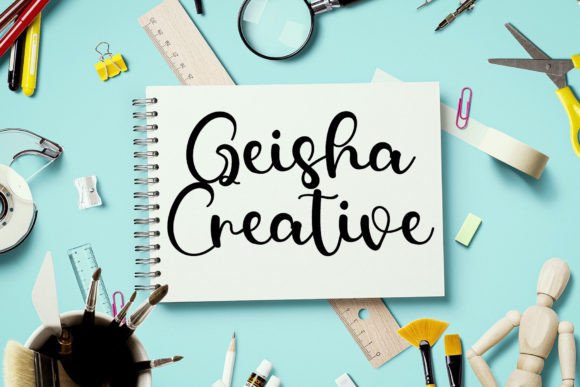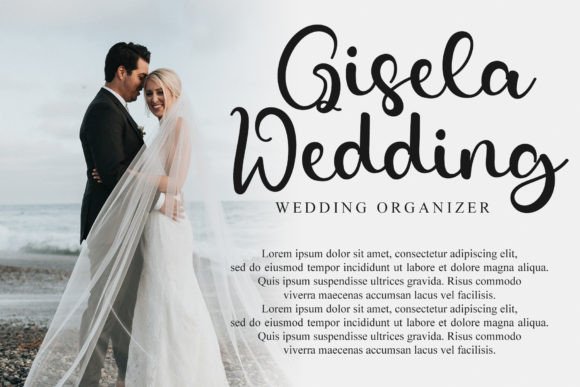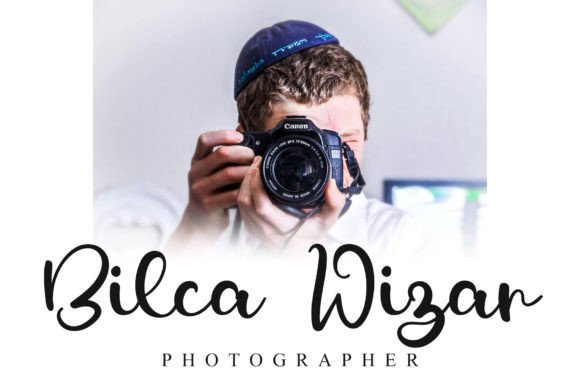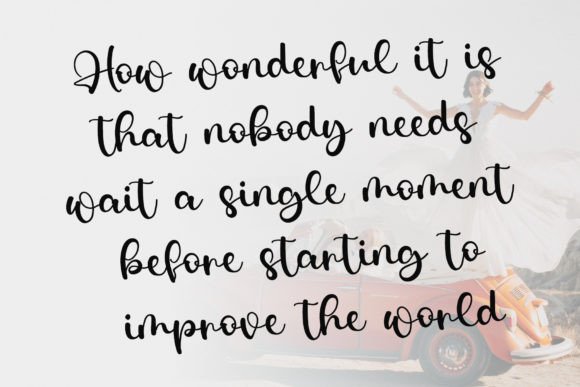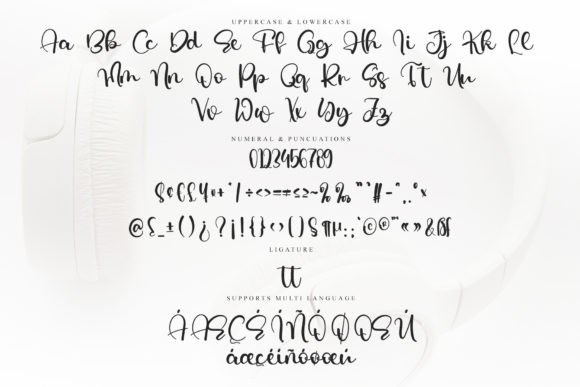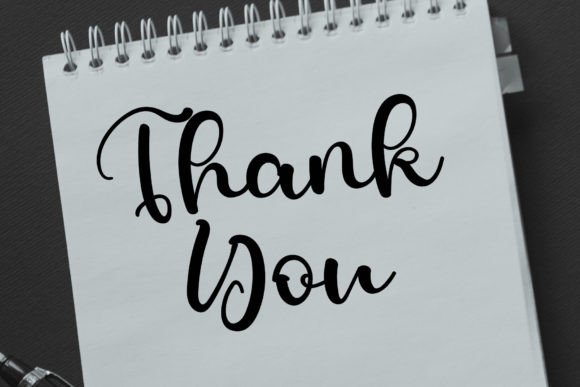
Introducing Elation Font: The Ultimate Handwritten Style for Your Creative Projects
Are you a designer, crafter, or DIY enthusiast looking for a stylish and modern handwritten font to elevate your creative projects? Look no further than Elation Font! This versatile and beautiful font is perfect for a wide range of applications, from greeting cards to headlines, branding, and packaging.
What Makes Elation Font So Special?
Elation Font is a stunning example of modern typography, boasting a unique and elegant handwritten style that is sure to add a touch of happiness to each of your creations. Its stylish and fluid letterforms make it perfect for a variety of projects, whether you’re designing a greeting card, creating a logo, or developing a brand identity.
Key Features of Elation Font
- PUA Encoded: Elation Font is PUA (Private Use Area) encoded, which means you can easily access all of the amazing glyphs and ligatures without any hassle. This feature makes it simple to get creative and experiment with different typography combinations.
- Wide Range of Applications: From greeting cards to headlines, branding, and packaging, Elation Font is suitable for a wide spectrum of applications. Its versatility makes it an excellent addition to any designer’s or crafter’s toolkit.
- Handwritten Style: Elation Font features a beautiful, modern handwritten style that adds a personal touch to any project. Its elegant letterforms and flowing connections make it perfect for designs that require a touch of sophistication and whimsy.
Why Choose Elation Font?
With so many fonts available, why choose Elation Font for your creative projects? Here are just a few reasons:
- Unique and Eye-Catching: Elation Font’s stylish and modern design makes it stand out from the crowd. Its unique letterforms and ligatures will add a touch of personality to your designs and help them grab attention.
- High-Quality Design: Elation Font is designed with high-quality and precision in mind. Its elegant and flowing letterforms make it perfect for designs that require a touch of sophistication and elegance.
How to Use Elation Font in Your Projects
Elation Font is incredibly versatile and can be used in a wide range of projects. Here are just a few ideas to get you started:
- Greeting Cards: Add a personal touch to your greeting cards with Elation Font’s elegant and flowing script.
- Branding and Packaging: Use Elation Font to create a unique and eye-catching brand identity that will help your business stand out.
- Headlines and Titles: Add a touch of sophistication and elegance to your headlines and titles with Elation Font’s stylish and modern design.